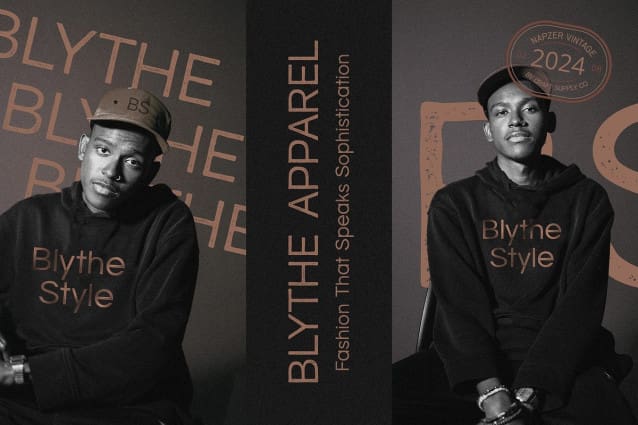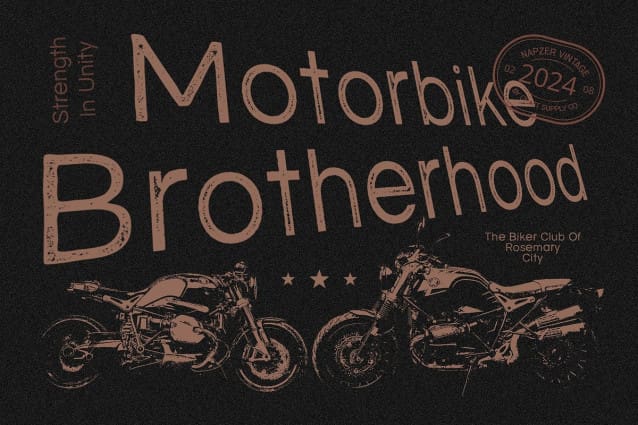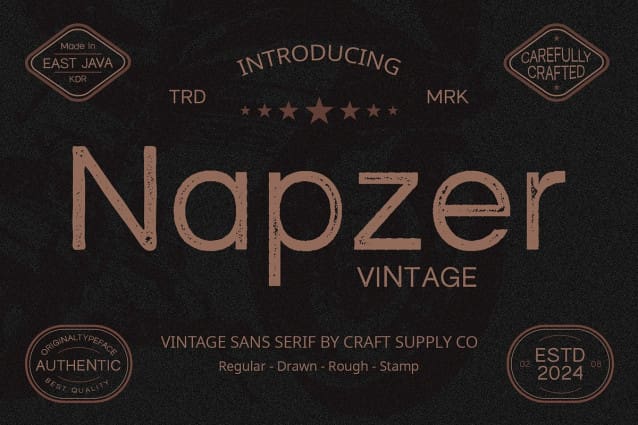
Napzer Vintage Font
Napzer Vintage Font: Embracing Retro Vibes. Low Contrast Sans Serif Napzer Vintage presents a low contrast sans serif typeface, offering a balanced and uniform appearance across all characters.
Stamp Rough Grunge Effect Infused with a stamp rough grunge effect, Napzer Vintage exudes a vintage aesthetic reminiscent of bygone eras, adding texture and character to each letterform.
Vintage Appeal with Modern Twist Combining classic vintage charm with a modern twist, This font offers versatility in design applications, appealing to both retro enthusiasts and contemporary designers alike.
Perfect for Retro Projects Tailored for retro-themed projects, This font adds a nostalgic touch to branding, packaging, posters, and more, elevating designs with its distinct retro vibe.
Timeless Retro Typeface This font embodies the essence of vintage typography with its low contrast sans serif style and stamp rough grunge effect. Whether used for branding or graphic design, it effortlessly infuses projects with retro charm and character, making it a versatile choice for designers seeking to evoke nostalgia in their work.